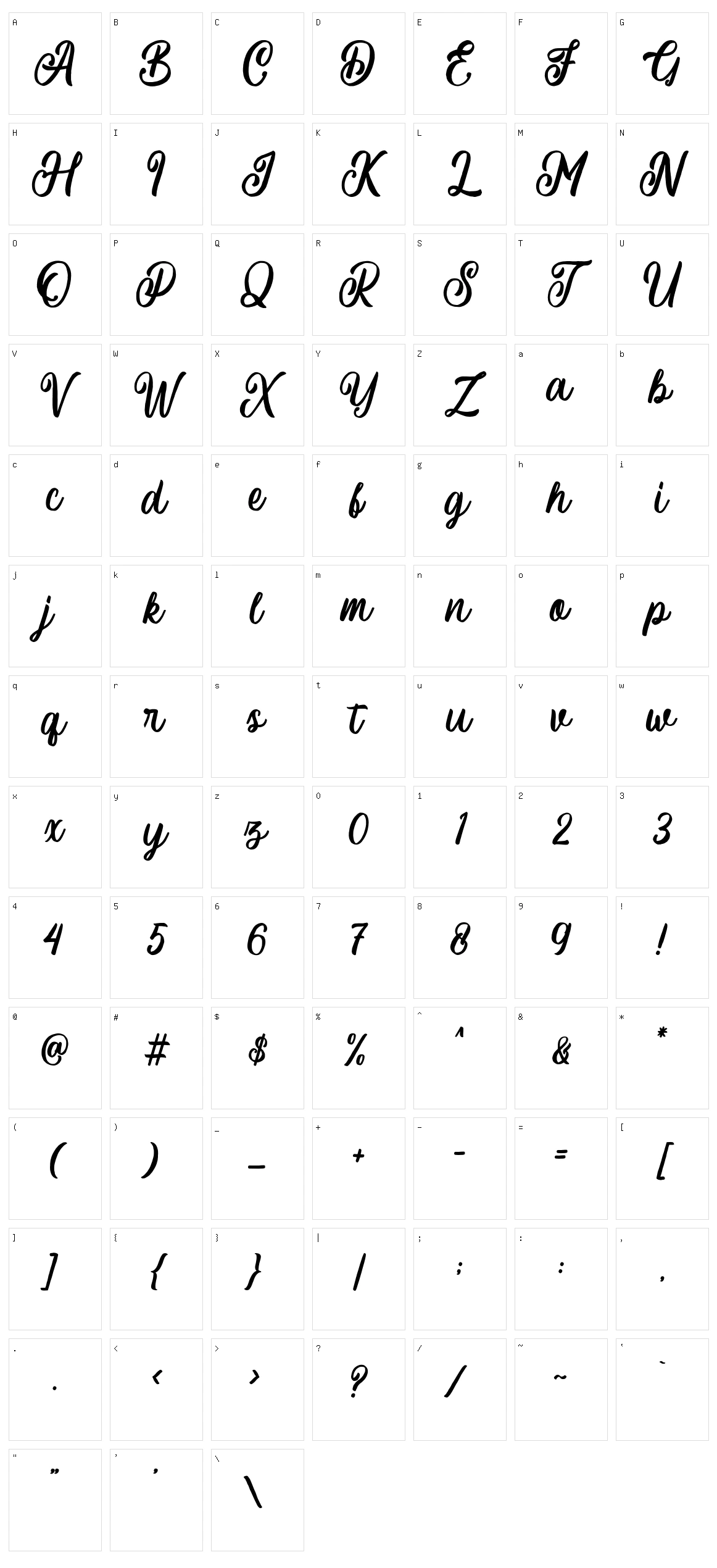
Courtland is one name originating from Canada greatly inspired the birth of this vintage font. With the opentype feature: standar ligature, stylistic alternate (specifically for lowercase), Stylistic Sets 01 through 06 with different styles in each letter. Courtland is perfect for use in logo types, vintage logos, posters, labels, packaging, headlines, t-shirts and other designs.